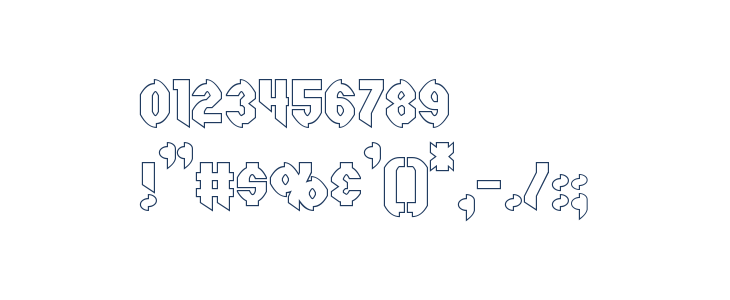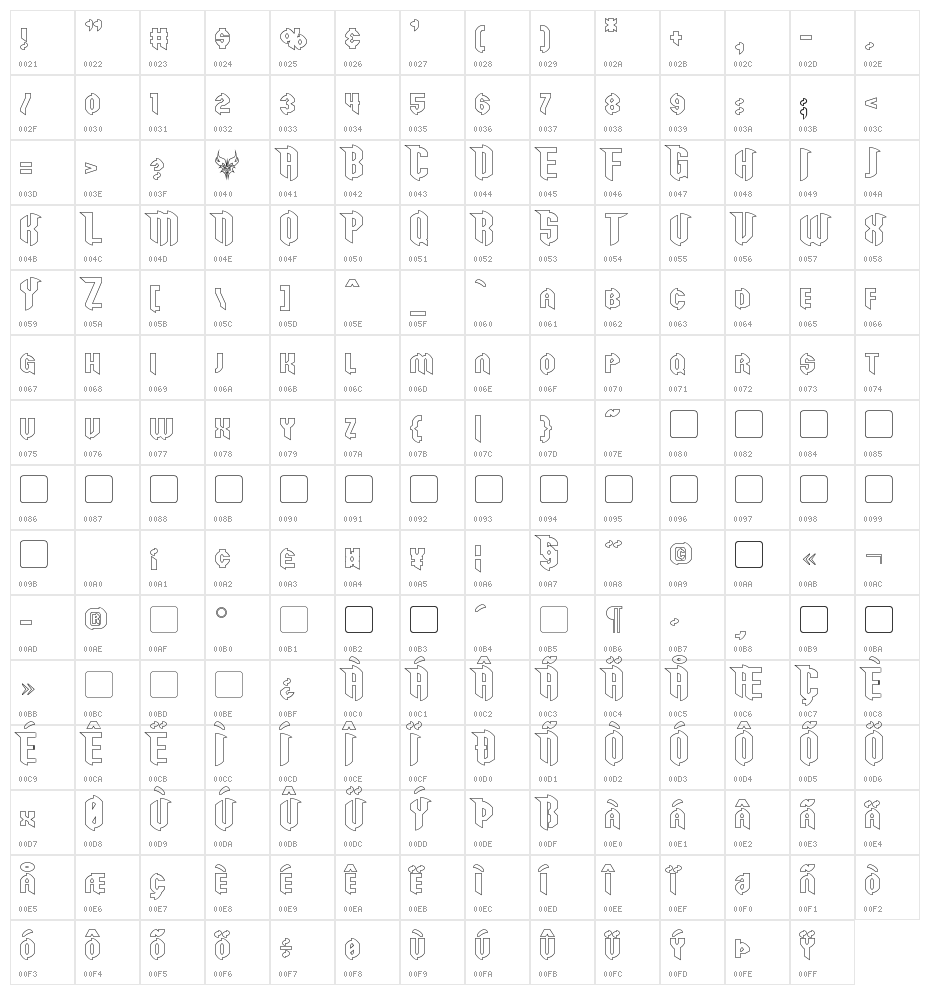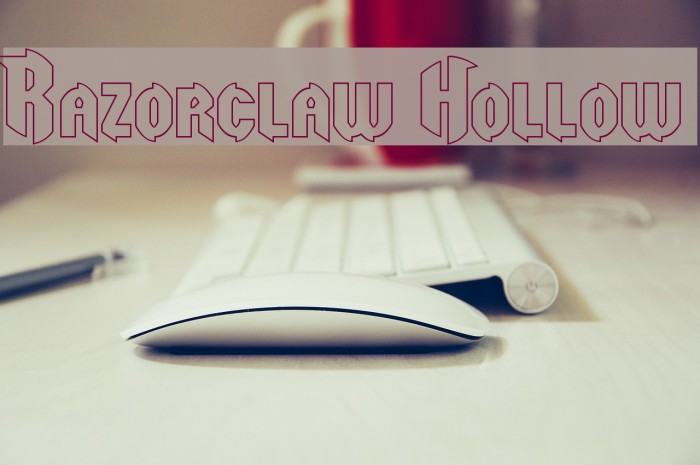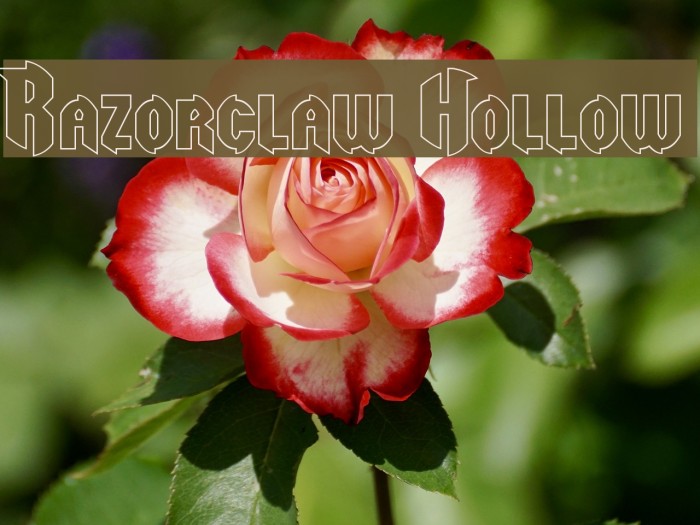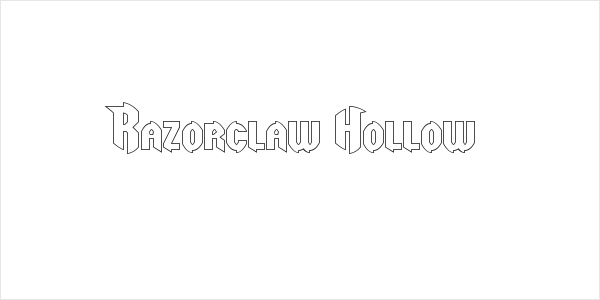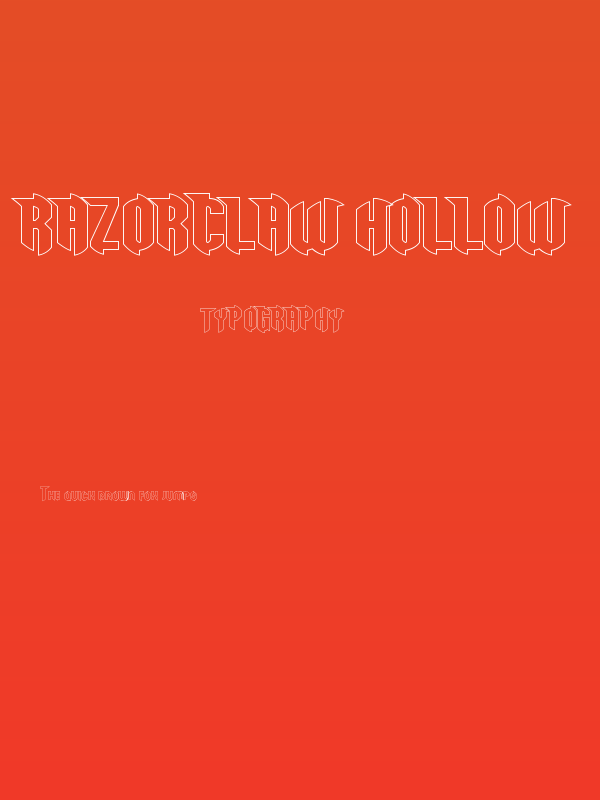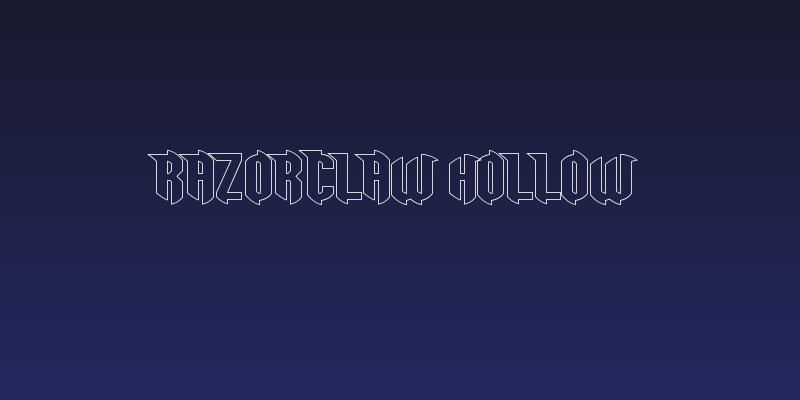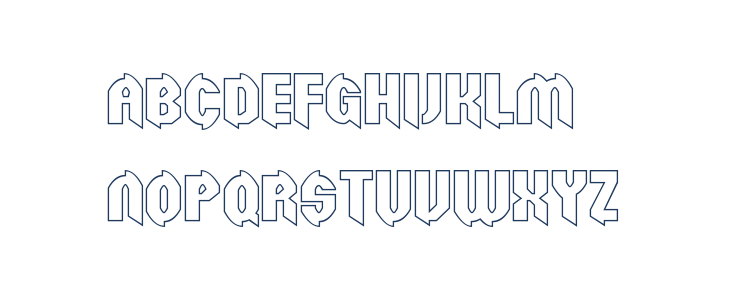
Razorclaw Hollow Font
Razorclaw Hollow Description
This font features a bold, angular design with a hollow interior, giving it a striking and modern appearance. The uppercase letters are characterized by sharp, geometric edges and a three-dimensional look, while the lowercase letters maintain a consistent style with slightly softer angles. The numbers follow the same design principles, ensuring uniformity across all characters. Special characters are creatively integrated, maintaining the font's unique aesthetic. This font is ideal for projects that require a bold and impactful visual statement.
| Proposed Projects | Ideal for video game titles, posters, and branding that requires a strong, modern look. |